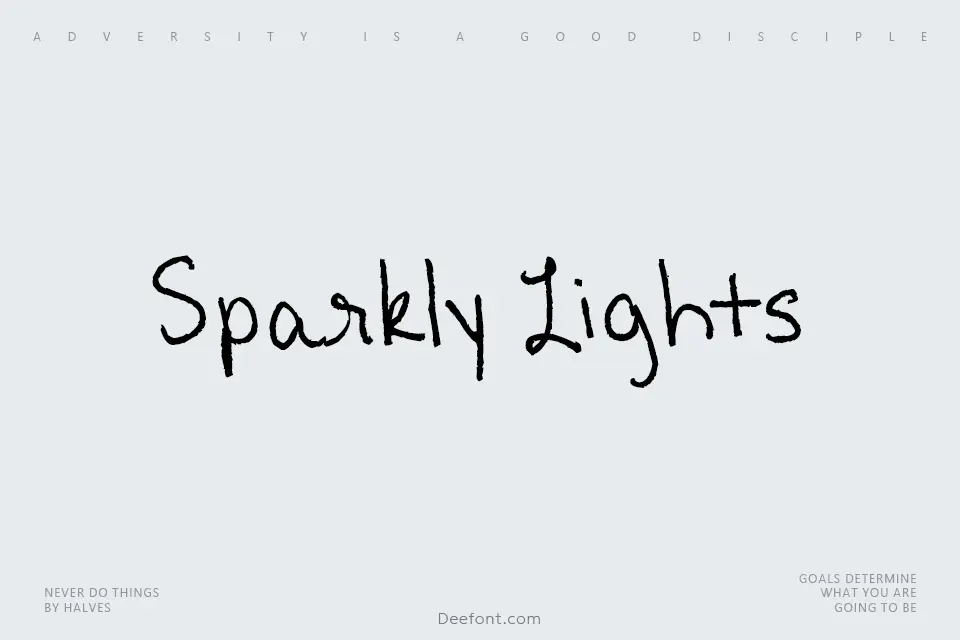
Sparkly Lights Font
Sparkly Lights is an elegant handwritten script font featuring delicate, flowing letterforms with organic imperfections that capture the authentic essence of natural handwriting. Designed with thin, graceful strokes, this whimsical typeface radiates charm and personality, making it ideal for wedding invitations, greeting cards, poster designs, social media graphics, and creative branding projects. The font’s casual yet refined aesthetic brings warmth and personalization to any design, perfect for adding a touch of sparkle and sophistication to display-focused compositions.